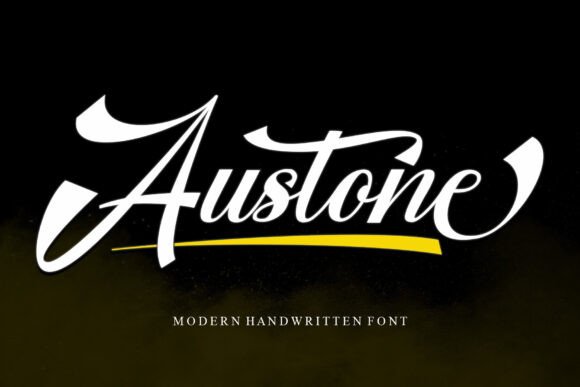
Step into the Contemporary World of Typography with Austone Font
In the realm of typography, fonts play a pivotal role in conveying messages, evoking emotions, and creating a lasting impression. With the ever-evolving design landscape, it’s essential to stay ahead of the curve with innovative and stylish typography. Introducing “Austone,” a sophisticately modern, handwritten font that’s poised to revolutionize the world of design. This extraordinary calligraphy boasts artistically unique swashes that effortlessly infuse elegance into your diverse designs, making it an ideal choice for creative ventures.
The Birth of Austone: A New Era in Typography
Austone font is the brainchild of talented typographers who sought to create a typeface that embodies the essence of modernity while exuding a sense of timelessness. With its roots in traditional calligraphy, Austone has been crafted to transcend the boundaries of conventional typography. This stunning handwritten font is characterized by its fluid strokes, artistic swashes, and a dash of sophistication, making it perfect for designers seeking to add a personal touch to their work.
Unleashing Elegance with Austone’s Unique Swashes
One of the standout features of Austone font is its artistically unique swashes. These decorative strokes add a touch of elegance and refinement to any design, elevating it from ordinary to extraordinary. The swashes in Austone are meticulously crafted to create a sense of movement and fluidity, making them perfect for use in a variety of design applications, from luxury branding to wedding stationery.
The versatility of Austone’s swashes lies in their ability to be used in various contexts. Whether you’re looking to add a touch of whimsy to a children’s book or create a sophisticated logo for a high-end fashion brand, Austone’s swashes can be tailored to suit your design needs. With Austone, you can effortlessly infuse elegance into your designs, making it an invaluable asset for designers seeking to create stunning visual experiences.
Austone: The Perfect Blend of Modernity and Timelessness
Austone font is more than just a stylish typeface; it’s a timeless ethos that captures the imagination. Its modern design and classic calligraphy roots make it an ideal choice for designers seeking to create designs that stand the test of time. With Austone, you can add a personal touch to your creative ventures, making them more relatable and engaging to your audience.
The beauty of Austone lies in its ability to seamlessly blend modernity with timelessness. This font is not just a fleeting trend; it’s a design solution that will remain relevant for years to come. Whether you’re working on a branding project, creating a website, or designing a marketing campaign, Austone provides a solid foundation for creating stunning visual experiences that resonate with your audience.
Exploring the Design Possibilities with Austone
Austone font offers a world of design possibilities, limited only by your imagination. With its versatility and elegance, Austone can be used in a wide range of design applications, including:
- Luxury branding: Create sophisticated logos, business cards, and letterheads that exude elegance and refinement.
- Wedding stationery: Add a touch of whimsy and romance to your wedding invitations, save-the-dates, and thank-you cards.
- Packaging design: Elevate your product packaging with Austone’s elegant typography, making it stand out on store shelves.
- Web design: Create stunning website headers, titles, and descriptions that showcase your brand’s personality.
Why Choose Austone Font?
With so many fonts available, why choose Austone? Here are just a few reasons why Austone stands out from the crowd:
- Unique swashes: Austone’s artistically unique swashes add a touch of elegance and sophistication to any design.
- Timeless ethos: Austone’s classic calligraphy roots and modern design make it a timeless typeface that will remain relevant for years to come.
- Versatility: Austone can be used in a wide range of design applications, from luxury branding to web design.
- Easy to use: Austone is designed to be user-friendly, making it easy to incorporate into your design workflow.
In conclusion, Austone font is a game-changer in the world of typography. Its sophisticately modern design, artistically unique swashes, and timeless ethos make it an ideal choice for designers seeking to add a personal touch to their creative ventures. With Austone, you can effortlessly infuse elegance into your designs, making it an invaluable asset for any designer. Whether you’re working on a luxury branding project or creating a website, Austone provides a solid foundation for creating stunning visual experiences that resonate with your audience.